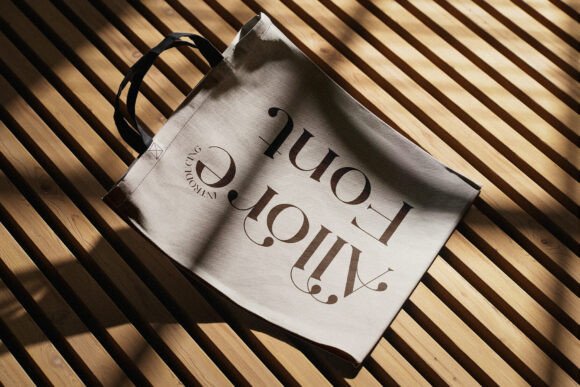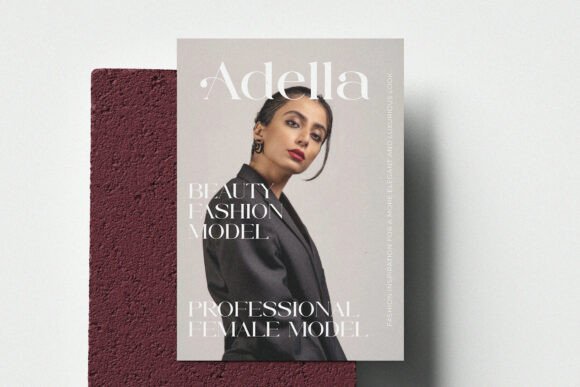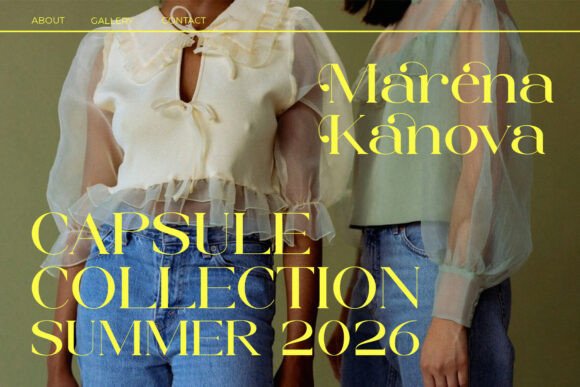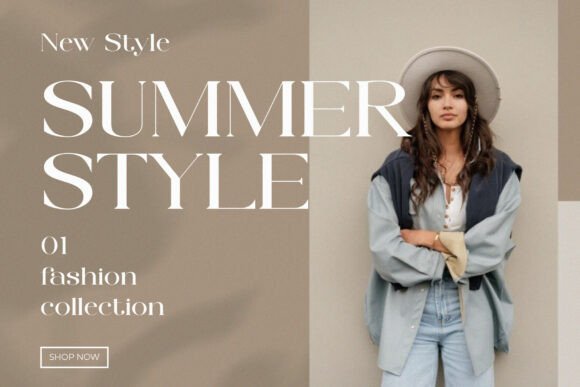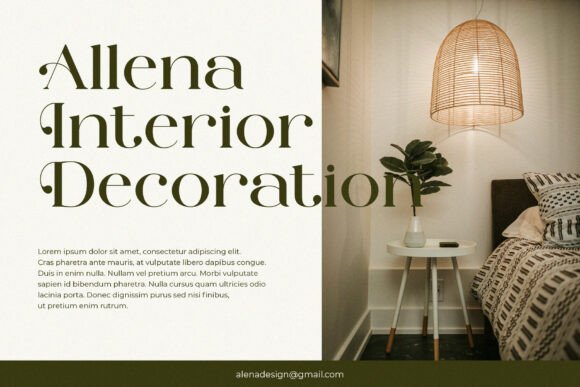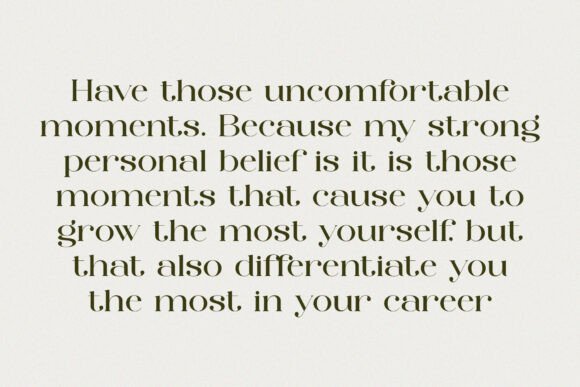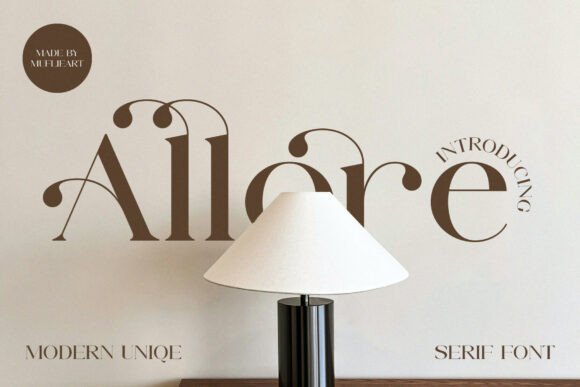
Introducing Allore Font: Elevate Your Brand with Elegance and Whimsy
In the world of typography, a font can make or break a brand’s identity. For those seeking a typeface that embodies sophistication, creativity, and a touch of organic charm, Allore Font is an exceptional choice. This modern, unique serif font is designed to captivate audiences through its organic movement, striking a perfect balance between traditional serif roots and whimsical, high-fashion flourishes.
The Distinctive Personality of Allore
Allore’s distinctive personality is defined by its breathtakingly long, “sprouting” swashes and ball terminals that mimic the graceful curves of botanical life. These elegant features add a touch of refinement and artisanal beauty to any design, making it an ideal choice for boutique fashion labels, artisanal fragrance packaging, romantic wedding stationery, and chic editorial layouts.
A Masterful Blend of Tradition and Whimsy
Allore Font seamlessly blends traditional serif roots with modern, high-fashion elements, resulting in a typeface that is both timeless and trendy. Its unique serif design ensures that every headline carries a signature and legendary presence, setting your brand apart from the competition.
Refined Human-Centric Warmth and Polished Artisanal Beauty
One of the standout features of Allore Font is its ability to deliver a sense of refined human-centric warmth and polished artisanal beauty to your designs. This font is perfect for designers and crafters who want to add a touch of elegance and sophistication to their work. Whether you’re creating a brand identity, packaging, or editorial content, Allore Font is sure to impress.
Ideal Applications for Allore Font
Allore Font is an exceptional choice for a variety of design applications, including:
- Boutique Fashion Labels: Add a touch of luxury and sophistication to your brand identity with Allore Font.
- Artisanal Fragrance Packaging: Elevate your packaging design with the elegant and refined features of Allore Font.
- Romantic Wedding Stationery: Make your wedding stationery truly unforgettable with the whimsical and romantic charm of Allore Font.
- Chic Editorial Layouts: Add a touch of glamour and sophistication to your editorial content with Allore Font.
Why Choose Allore Font?
With Allore Font, you can:
- Define your brand’s signature: Create a lasting impression with a unique and memorable typeface.
- Elevate your design: Add a touch of elegance and sophistication to your work.
- Stand out from the competition: With its distinctive personality and refined features, Allore Font is sure to set your brand apart.
| Font Name | Allore Font |
| Author | Muflieart |
In conclusion, Allore Font is an exceptional choice for designers and crafters seeking a modern, unique serif font that embodies elegance, whimsy, and sophistication. With its distinctive personality, refined features, and ideal applications, Allore Font is sure to elevate your brand identity and make a lasting impression on your audience.